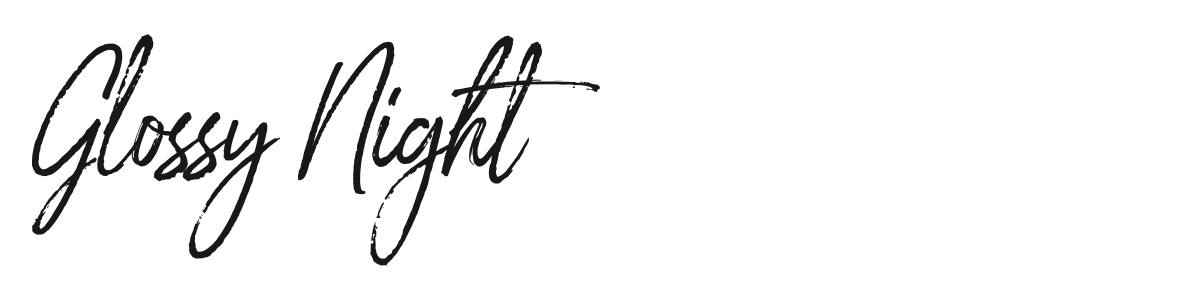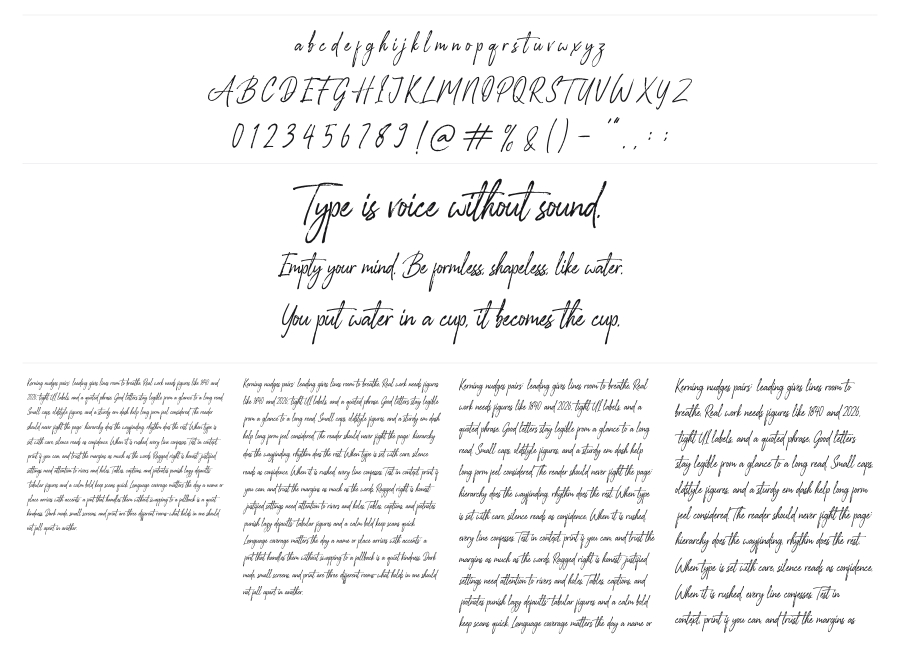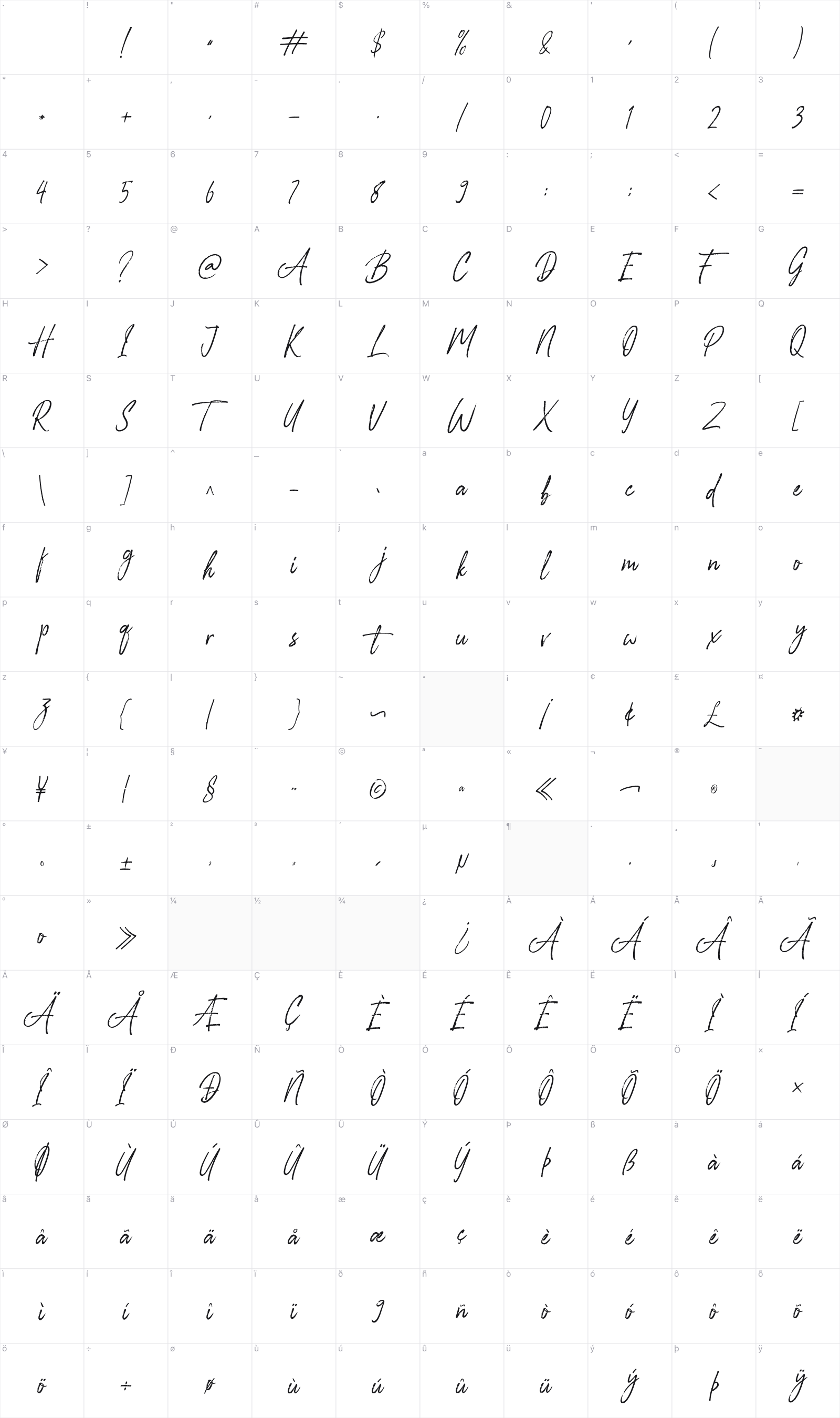
Glossy Night
Glossy Night is a textured brush script with the raw, spontaneous feel of ink dragged across paper with a stiff bristle brush. The heavy distressing runs through every stroke, giving it an authentically handmade quality that clean digital scripts lack. Strong at large sizes for logos, packaging, and editorial headlines.